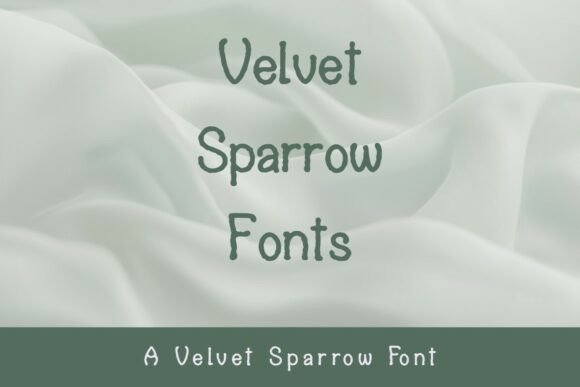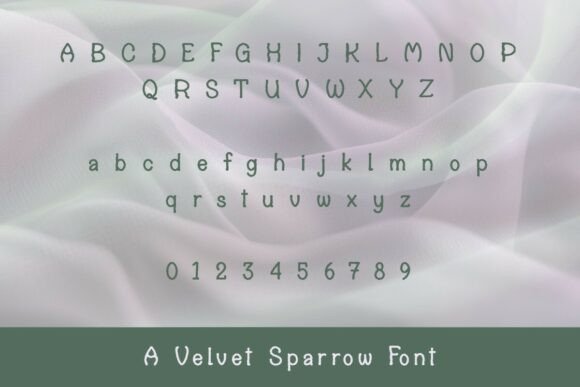
The Quest for the Perfect Handwritten Font: Discovering Ashen Crow
I still remember the design project that led me to Ashen Crow. I was working on a cozy cottagecore-themed planner, and I was on the hunt for a handwritten font that would capture the warmth and natural feel of the design. After hours of scrolling through font libraries and trying out different options, I stumbled upon Ashen Crow. Its soft, organic strokes and gentle texture immediately caught my eye, and I knew I had found the perfect fit.
Ashen Crow: A Softer Side of Handwritten Fonts
Ashen Crow is a beautiful, soft handwritten font that exudes a quiet, slightly irregular character. Its rounded strokes and gentle texture give it a calm, natural feel that’s perfect for journaling, scrapbooking, planner pages, stationery, quotes, and subtle branding. This font has a relaxed, human touch without feeling messy, making it easy to read while still retaining personality.
What I Love About Ashen Crow
- ✨ Soft and organic texture that adds warmth to any design
- ✅ Easy to read, even at smaller font sizes
- 💕 Perfect for designs that require a personal, human touch
- 🌿 Works beautifully with watercolor backgrounds, cottagecore designs, and muted, nature-inspired layouts
While Ashen Crow is an amazing font, it’s not perfect. Here are a few things to keep in mind:
- ⚠️ May not be suitable for very formal or corporate designs, as it has a distinctly casual feel
- 🤔 Some users may find the irregularities in the font too subtle or not pronounced enough
Ashen Crow supports OpenType features and glyphs that allow you to customize your text and add personality to your design. Here are some of the features you can expect:
- Stylistic alternates: Swap out characters for alternative forms that add visual interest to your text.
- Ligatures: Use special character combinations that create beautiful, flowing text.
- Glyphs: Access a range of special characters and symbols that can add personality to your design.
The Story Behind Ashen Crow
Ashen Crow was designed by a talented typographer who wanted to create a font that captured the warmth and personality of handwritten text. The designer drew inspiration from nature, creating a font that feels organic, soft, and calming. The result is a beautiful, unique font that’s perfect for designs that require a personal touch.
| Font Name | Ashen Crow Font |
| Author | Velvet.Sparrow |
- Q: What is Ashen Crow?
- Ashen Crow is a soft, organic handwritten font with a quiet, slightly irregular character.
- Q: What can I use Ashen Crow for?
- Ashen Crow is perfect for journaling, scrapbooking, planner pages, stationery, quotes, and subtle branding.
- Q: Is Ashen Crow easy to read?
- Yes, Ashen Crow is easy to read, even at smaller font sizes.